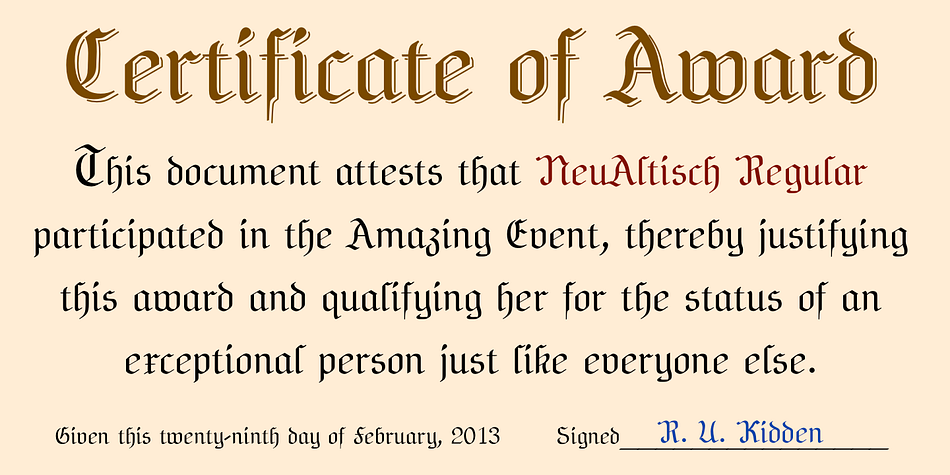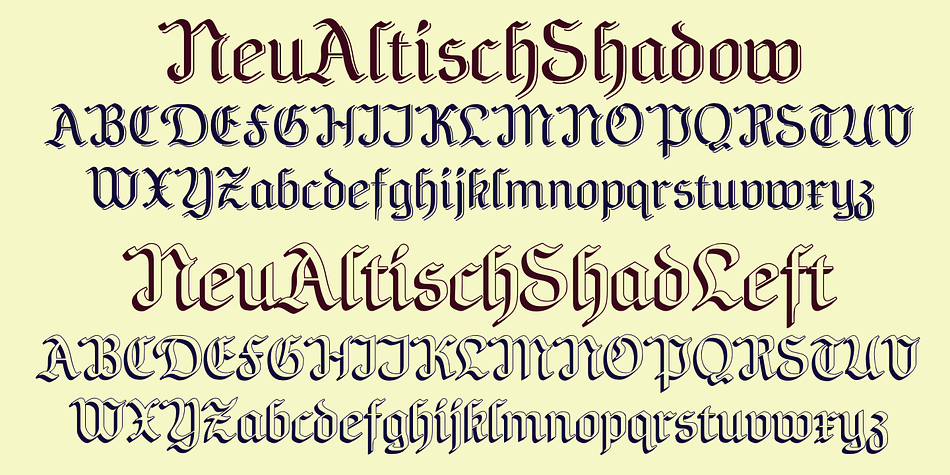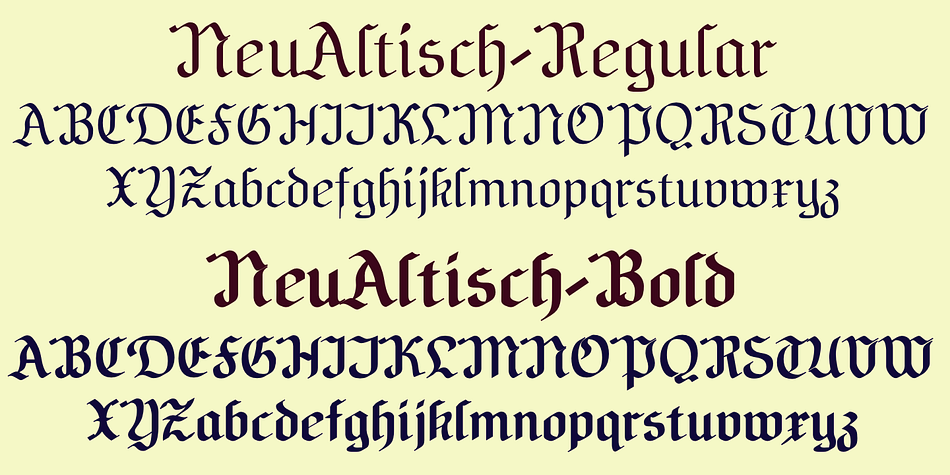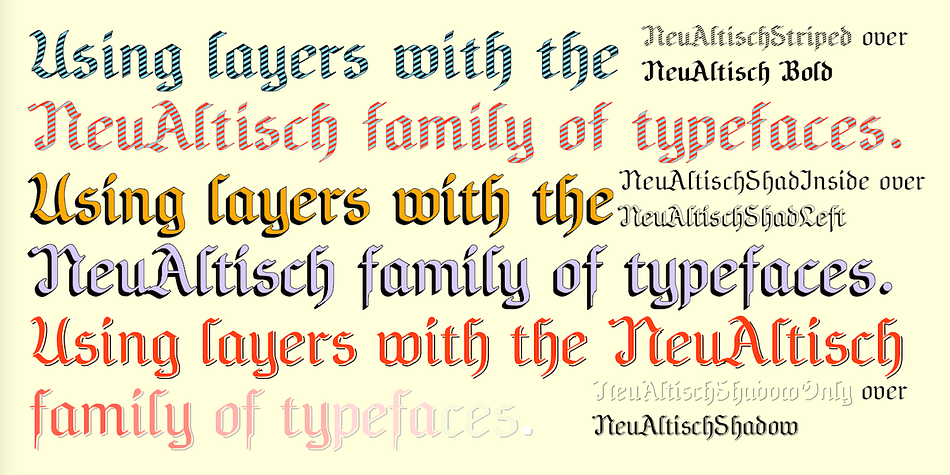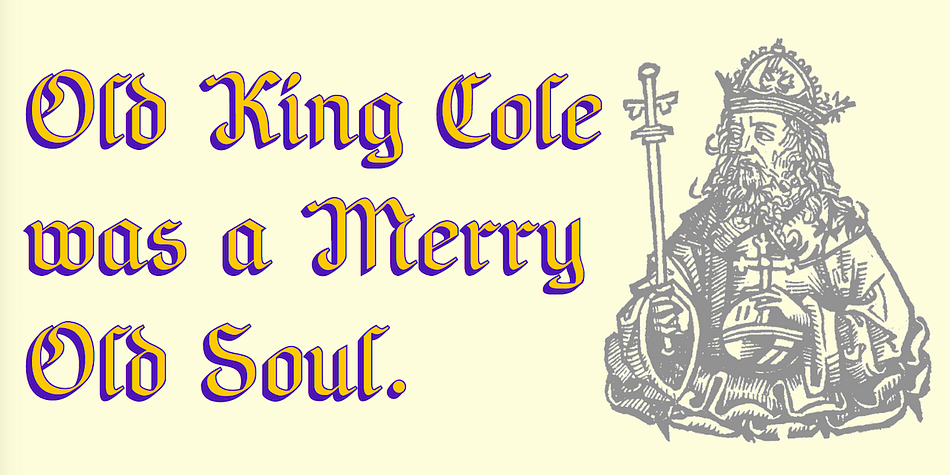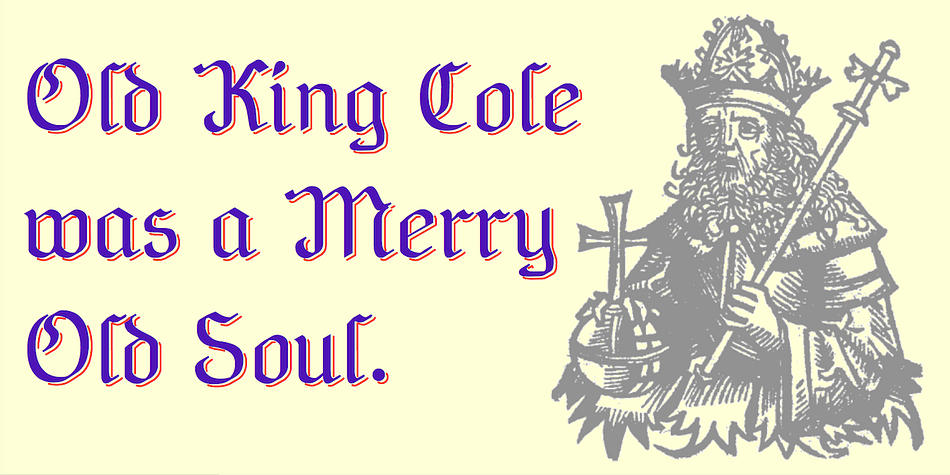
Designed by Robert Schenk, NeuAltisch is a blackletter, historical and modern calligraphy font family. This typeface has seven styles and was published by Ingrimayne Type.
NeuAltisch is a calligraphic version of a modernized, more rounded Fraktur. Blackletter fonts of this sort are useful for decorative purposes in certificates, invitations, labeling, and advertising.
The family has two weights, plus three versions that are shadowed or striped. The shadowed versions have been deconstructed so that they and their derived font can be used in layers to add color.
Foundry | Ingrimayne Type |
Released | 1992 |
Styles | Blackletter, Historical, Modern Calligraphy |
Designer | Robert Schenk |